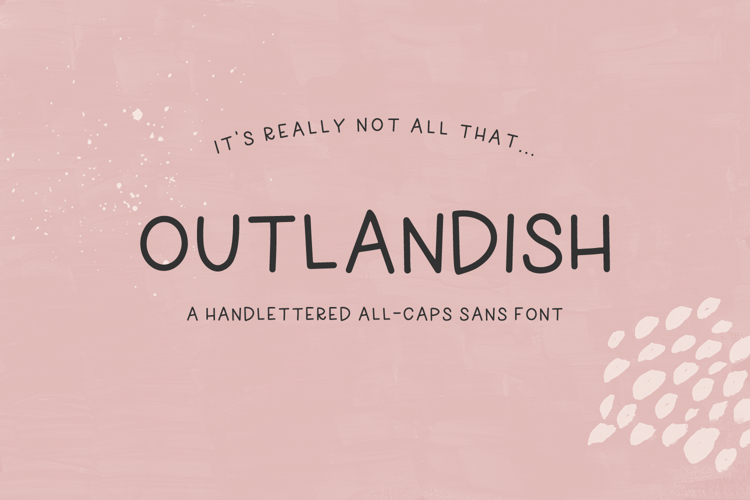
Meet Outlandish, a neat handwritten all-caps sans font. Outlandish has clean lines with a cute personality, making it an excellent choice for all types of projects. Use Outlandish with higher tracking values for a different look!
Outlandish Sans is best for:
- website design + website accents requiring a legible handwritten touch
- labels & product packaging